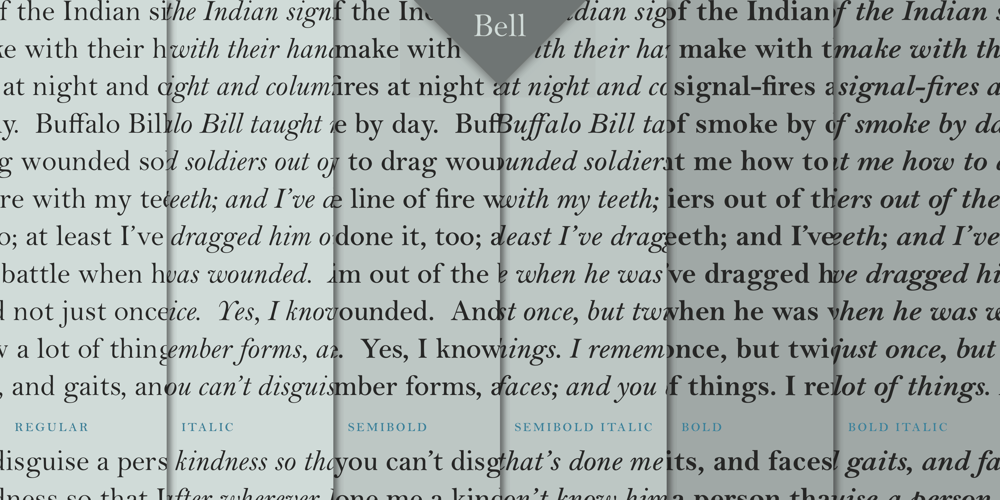
Bell MT Font Family was designed by Richard Austin, Monotype Design Studio and published by Monotype. Bell MT contains 6 styles and family package options. Monotype’s hot metal Bell series from 1931 was based on original types made by the punchcutter Richard Austin for the foundry of John Bell in the 1780s. The different sizes of Monotype’s series were not all based on the same model. As type historian James Mosley wrote on Typophile, “For 18 point and above (the metal type was cut in sizes up to 36 point) Monotype’s model was a larger type [than the model used for the text sizes], the ‘Great Primer’ cut by Austin. This has greater contrast in the capitals and a flat foot to letter a.” The digital Bell closely follows the design of the hot metal 18pt version, and is therefore somewhat lighter in color than the text sizes of Monotype’s original metal face. James Mosley’s Typophile article can be found here.